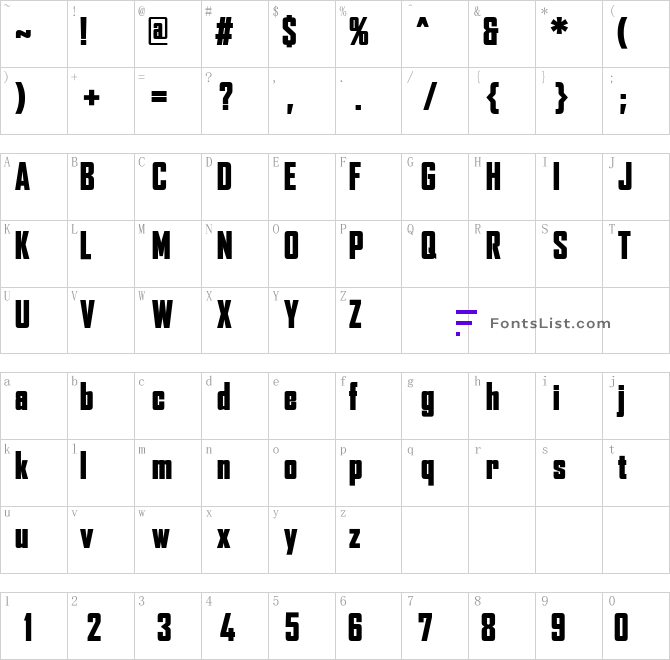
- Font Name:AgencyFB
- Full Name:AgencyFB-BlackCondensed
- PostScript:AgencyFB-BlackCondensed
AgencyFB-BlackCondensed.ttf is a very beautiful artistic font, AgencyFB-BlackCondensed.ttf is widely used in the design and printing of various books and pictures,AgencyFB-BlackCondensed.ttf has a strong visual impact,AgencyFB-BlackCondensed.ttf is a commonly used font in newspapers, magazines and books, and is used in posters, e-commerce Poster design, store design, logo design, font design and other fields.AgencyFB-BlackCondensed.